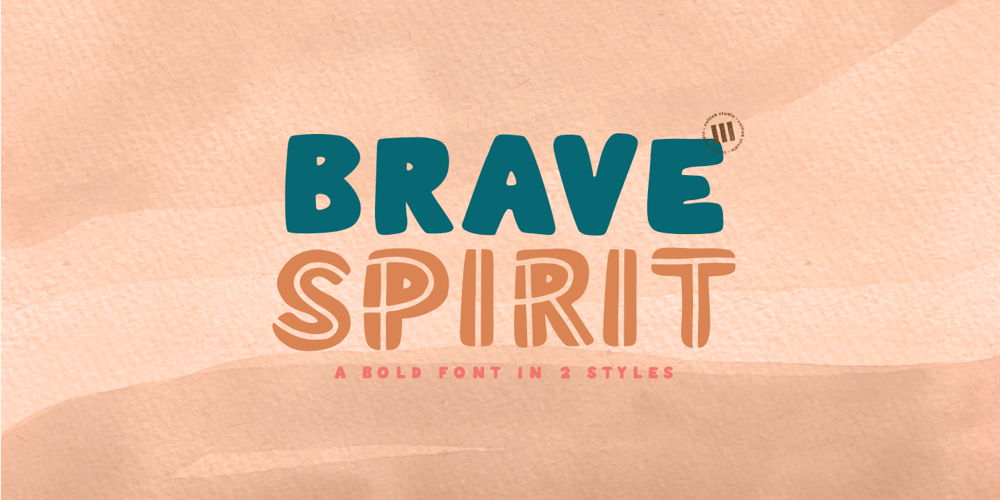
Brave Spirit
Brave Spirit font
Brave Spirit Font Family was designed by Muh. Aswar and published by Colllab Studio. Brave Spirit contains 2 styles and family package options. Presenting Brave Spirit! A Display Font in 2 Styles. This font made with the perfect combination of each character. You can combine with Extra to get a unique combination. It looks original and can be used for all your project needs. Each glyph has its own uniqueness and when meeting with others will provide dynamic and pleasing proximity. This font can be used at any time and in any project. You can see in the presentation picture above, Brave Spirit looks stylish and unique on design projects.So, Gilligan Shine can’t wait to give its touch to all your design projects such as quotes, poster design, personal branding, promotional materials, website, logotype, product packaging, etc.WHAT’S INCLUDED?1. Brave Spirit • The first version comes with uppercase, lowercase, ligatures, numeral, punctuation, symbols, and Standard Latin Multilingual Support (Afrikaans, Albanian, Catalan, Danish, Dutch, English, French, German, Icelandic, Indonesian, Italian, Malay, Norwegian, Portuguese, Spanisch, Swedish, Zulu, and More).1. Brave Spirit Alt • The first version comes with uppercase, lowercase, ligatures, numeral, punctuation, symbols, and Standard Latin Multilingual Support (Afrikaans, Albanian, Catalan, Danish, Dutch, English, French, German, Icelandic, Indonesian, Italian, Malay, Norwegian, Portuguese, Spanisch, Swedish, Zulu, and More).A Million ThanksColllab Studio